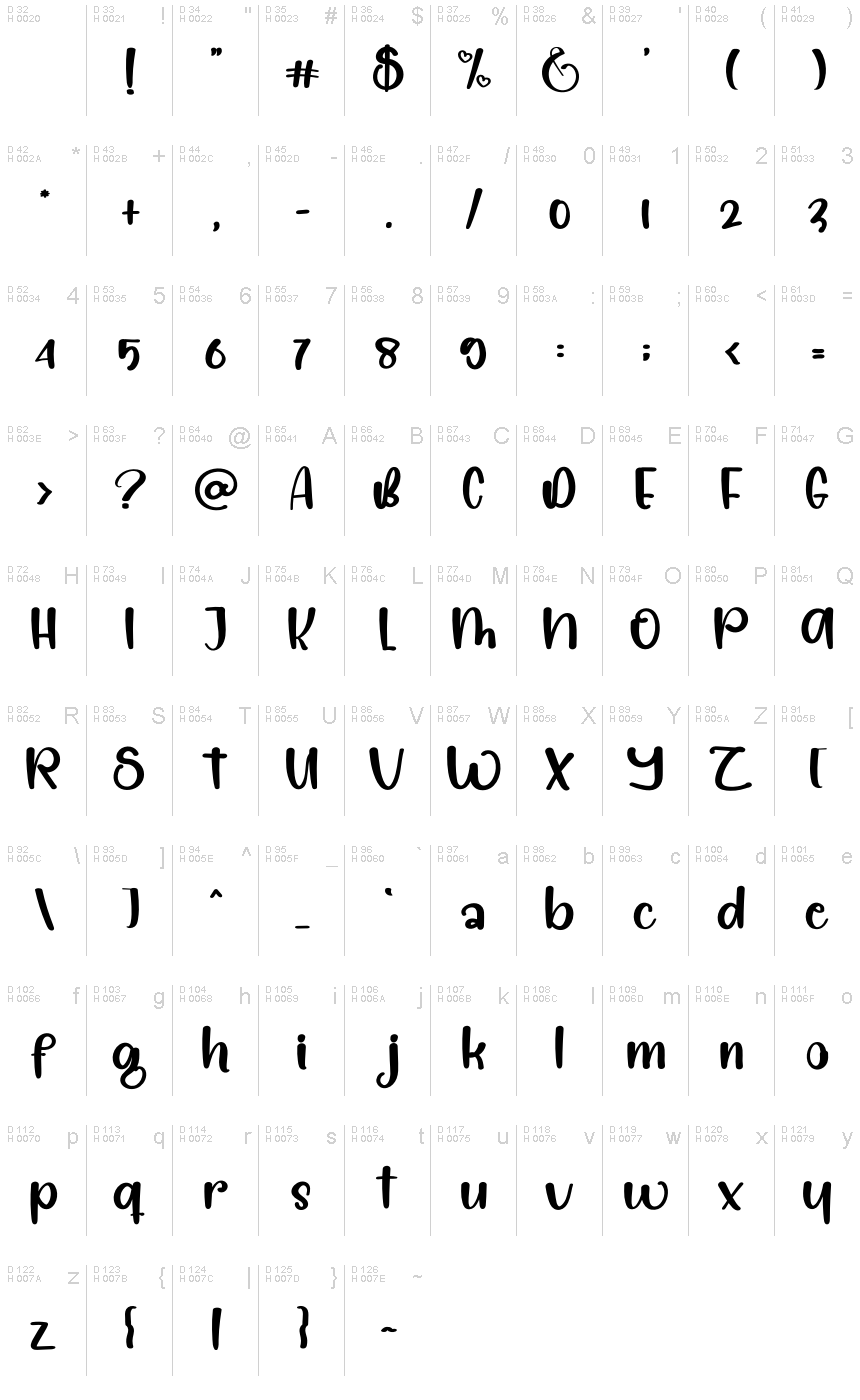
Happy Birthday
Evoking a sense of warmth and whimsy, the Happy Birthday font by FreshtypeINK exudes a charming, handwritten aesthetic. The flowing curves and playful flourishes lend an air of effortless elegance, creating a celebratory ambiance perfect for festive occasions. This captivating typeface seamlessly blends modern sensibilities with a nostalgic flair, making it a compelling choice for a wide range of design projects.
The Happy Birthday font's versatility shines through its ability to elevate greeting cards, party invitations, and other celebratory materials. Its distinctive personality adds a personalized touch, making it an excellent selection for crafting memorable social media posts, event branding, and custom-designed stationery. The font's expressive nature effectively conveys a sense of joy and enthusiasm, making it a versatile tool for designers seeking to infuse their work with a touch of whimsy and celebration.